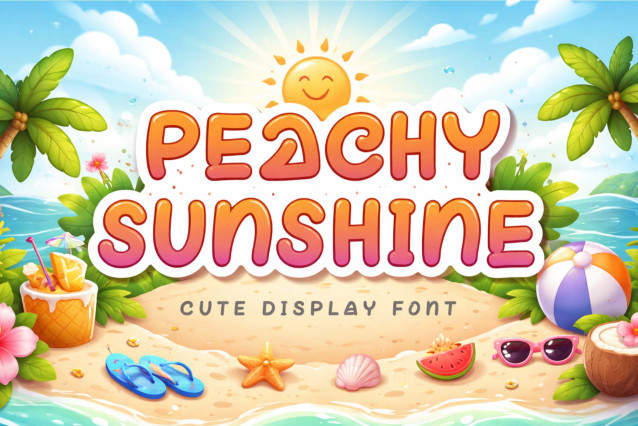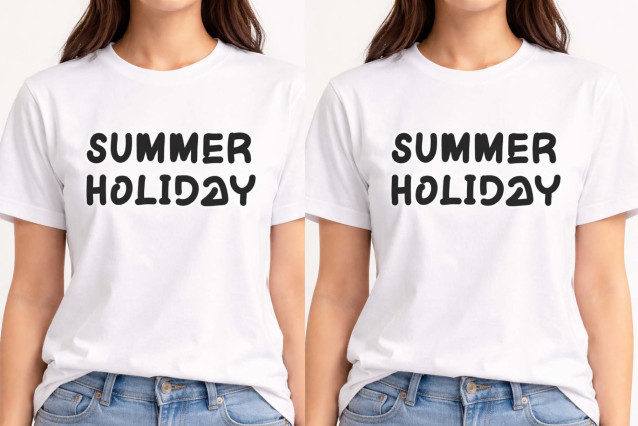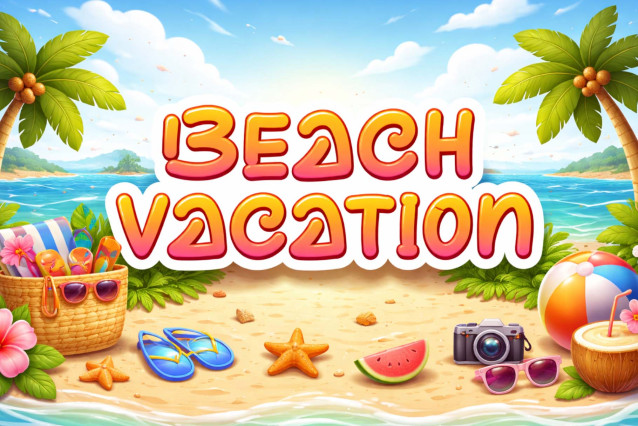
Peachy Sunshine Font
“Peachy Sunshine” is a unique and cute display font. It features uppercase and lowercase letters, numerals, punctuations, and multilingual support. It’s perfect for Easter, summer, holidays, Teacher’s Day, Mother’s Day, print, banners, branding, stickers, vacations, logos, Christmas, funny text, bunny, rabbit, cartoons, comics, and more.